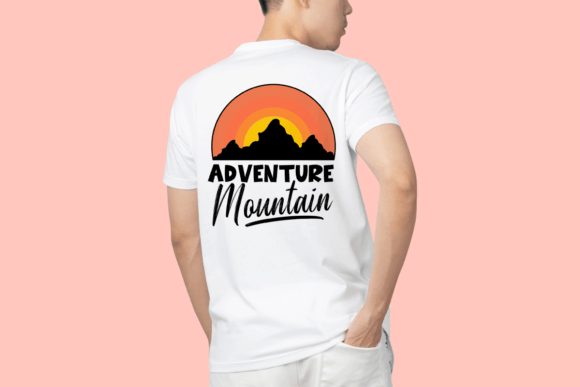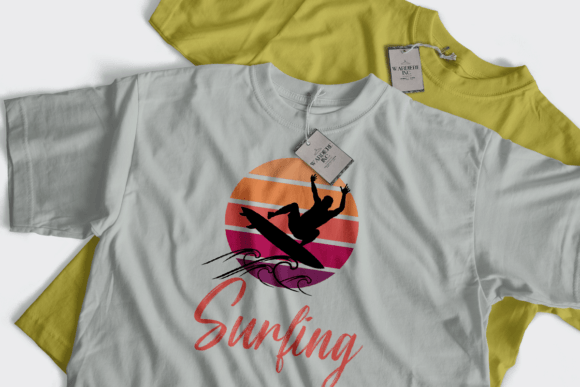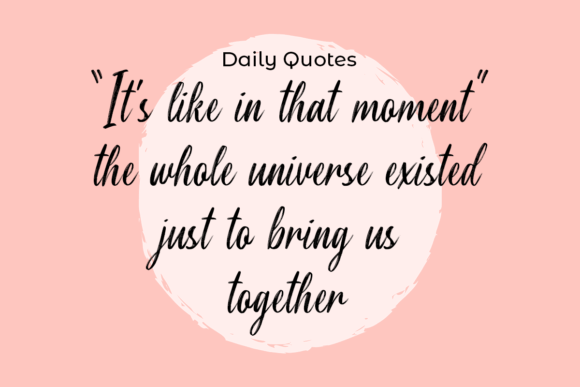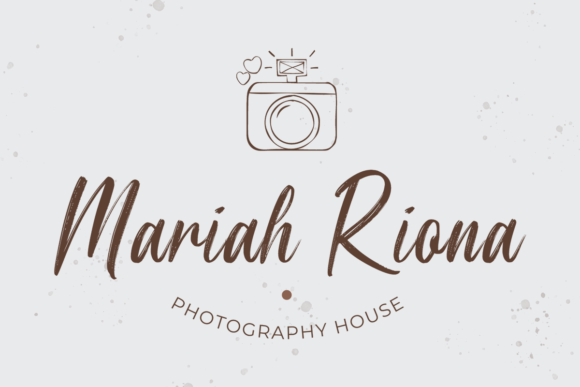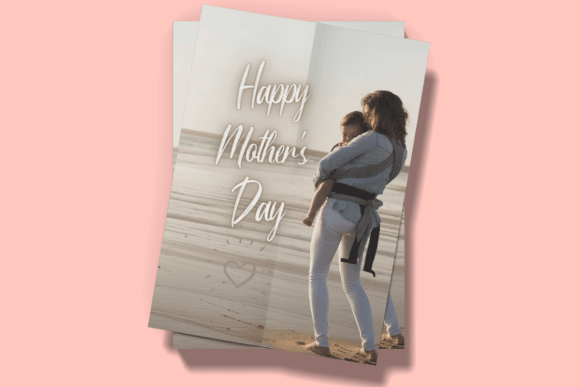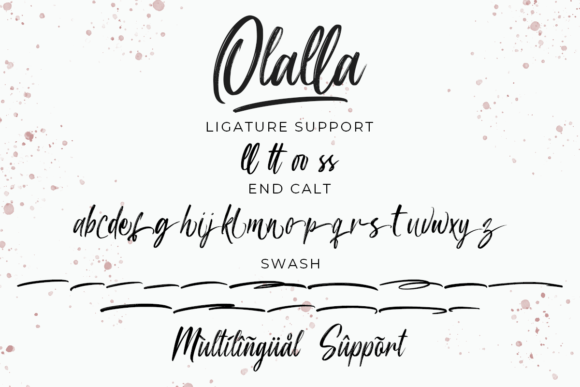
Introduction to Olalla Font
Olalla is a modern brushed script font that comes with a swash.
Simple but with powerful visual effects, this font is perfect for all logos, branding, poster, social media, fonts, typography, t-shirt designs, quotes, greeting cards, and more This font is PUA encoded, which means you can access all of the glyphs and swashes with ease.
Key Features of Olalla Font